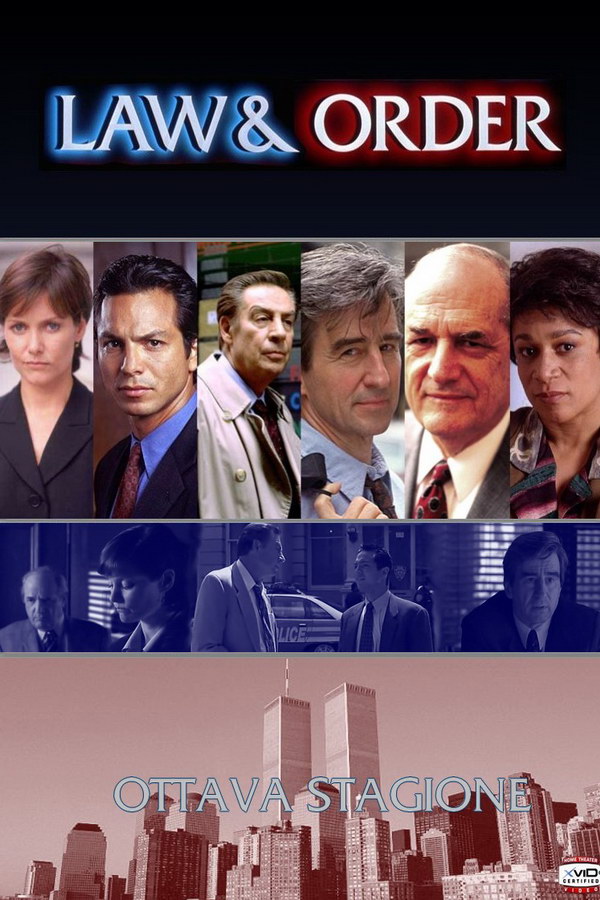
Law & Order Font
CrimeLaw & Order is a popular American television series that follows the investigations and prosecutions of criminal cases in the New York City criminal justice system. The show originally aired from 1990 to 2010 and has spawned multiple spin-offs and adaptations.
The font used to create the title lettering of the TV show is likely Friz Quadrata Std Roman, with neon effects applied to the text. Friz Quadrata Std Roman is available for purchase as a commercial font here.